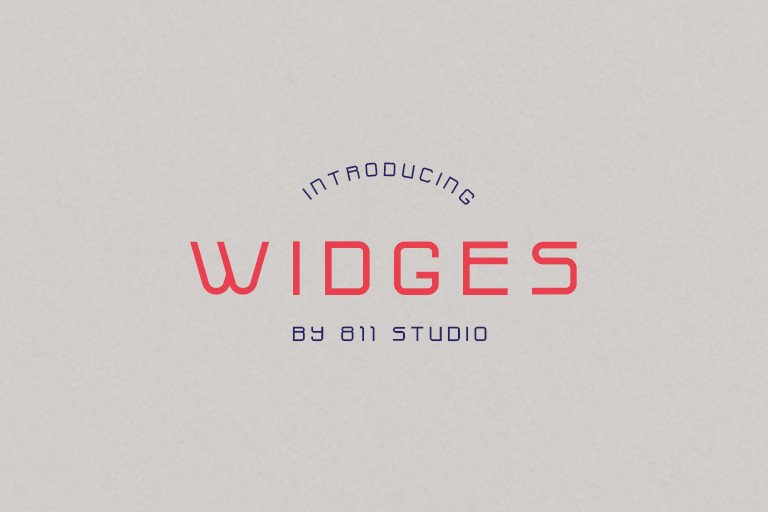
Widges Modern Font Demo
Widges Modern Font Demo is perfect for many different project such as logos & branding, invitation, stationery, designs, social media posts, advertisements, product packaging, product designs, label, photography, watermark, special events or anything